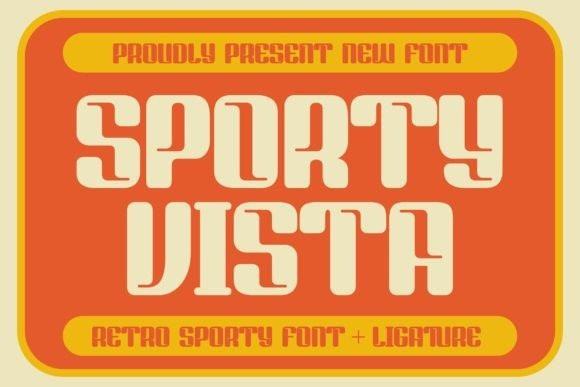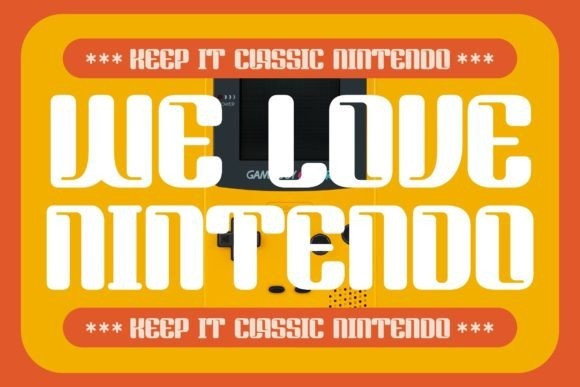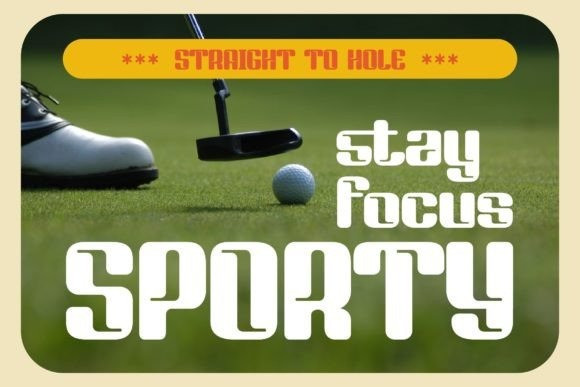
Sporty Vista Font
Sporty Vista is a classic serif font with a unique style and modern look. It is perfect for elegant and luxury logos, book or movie title design, fashion brands, magazines, clothes, lettering, quotes, and much more. Add it to any of your creative projects, and you will be amazed by the results.